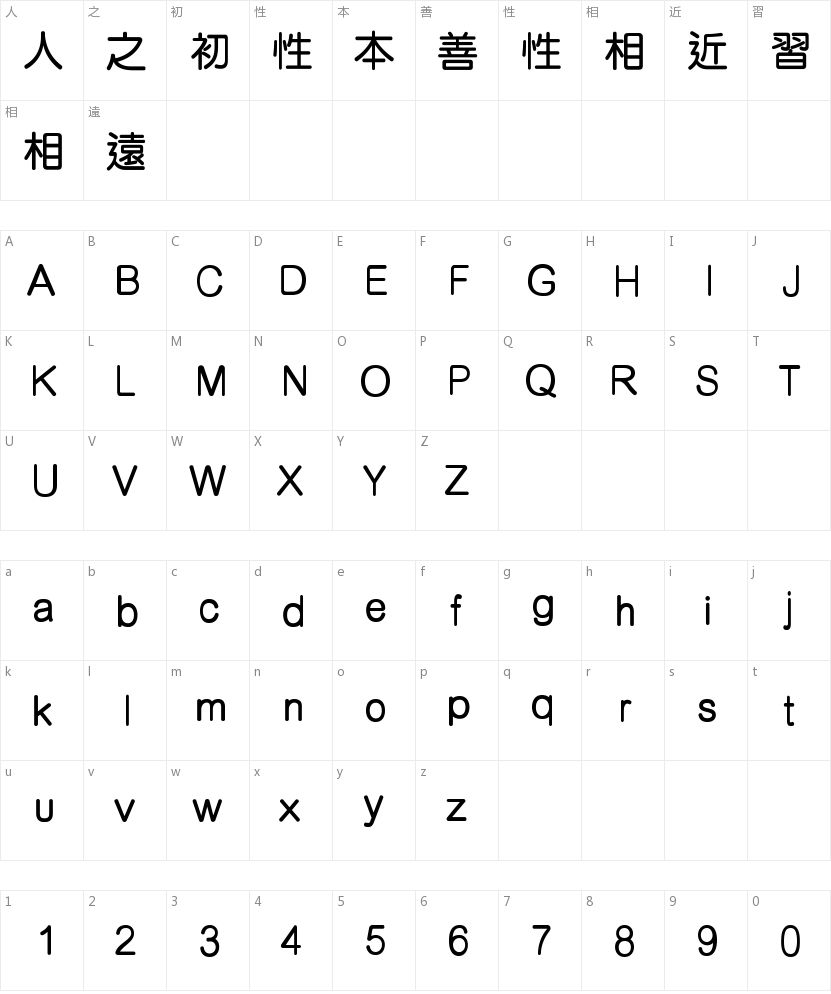
Mona Fanyuanhei is a traditional Chinese font designed by the well-known designer Ma Han and released in 2016. It aims to provide a clear, readable font for Chinese text, as well as a more modern look. Mona Fanyuanhei font has clear strokes, balanced rhythm, smooth lines, and a more modern look. Its clean glyphs are suitable for modern text design and can give text a clear, readable appearance.Content introduction
Mona round black is a very good handwriting art font, with a good visual sense, suitable for cultural propaganda design, commercial brand advertising and product packaging design and personalized text typesetting and other more scenes.